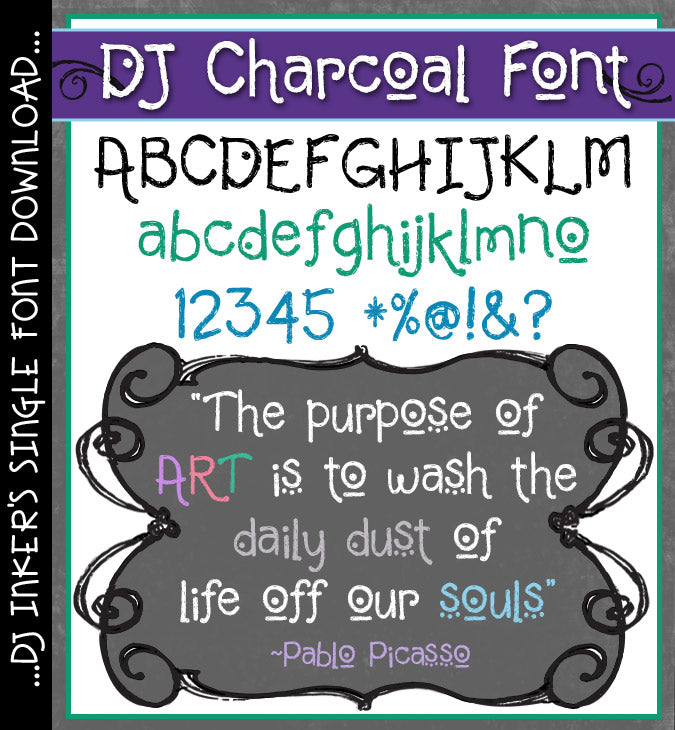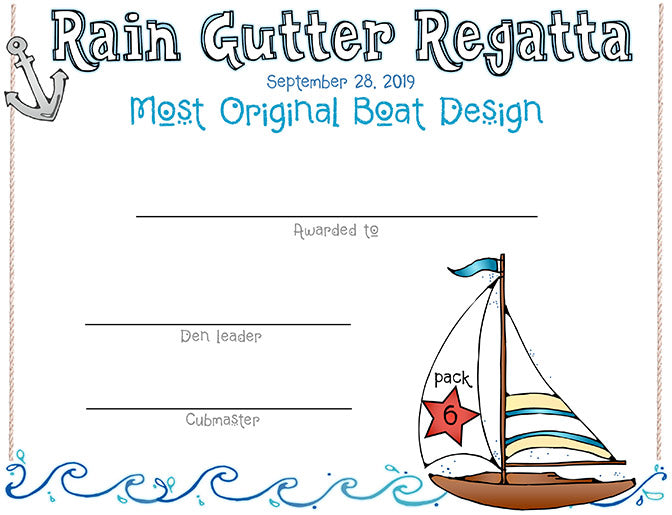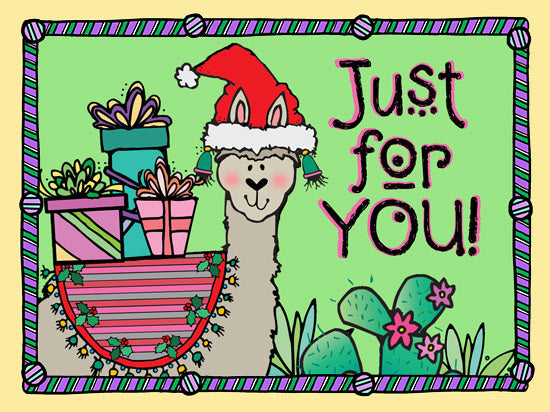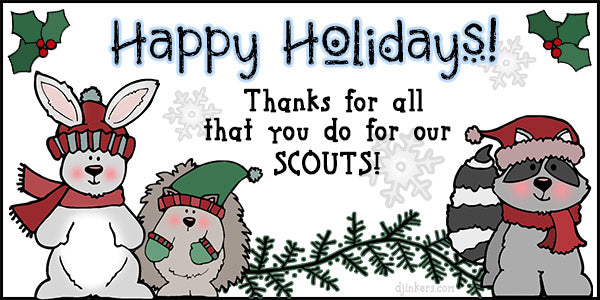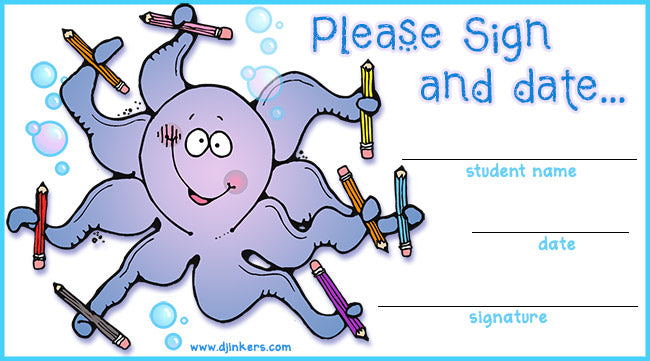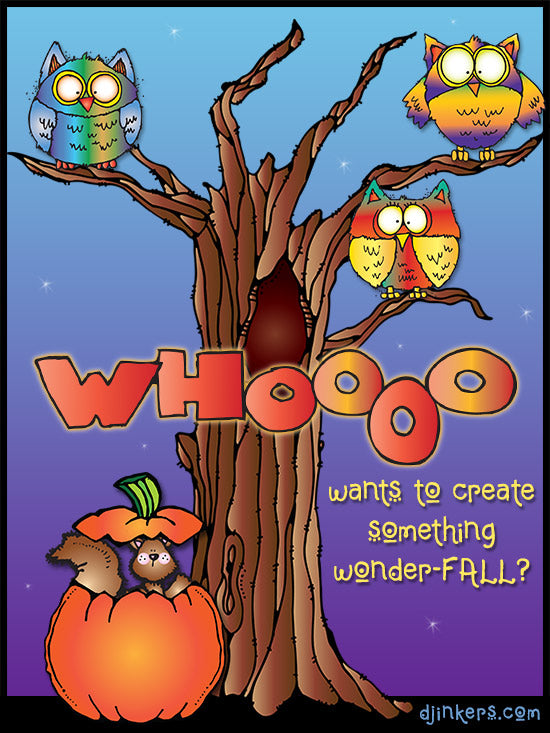
DJ Charcoal Font Download
Add some boldly textured fun to your lettering with DJ Charcoal. This
playful, hand drawn font is full of character and charm, making it perfect
for headlines, posters, handouts, crafting or any project that needs a
touch of personality. Type up a smile today!